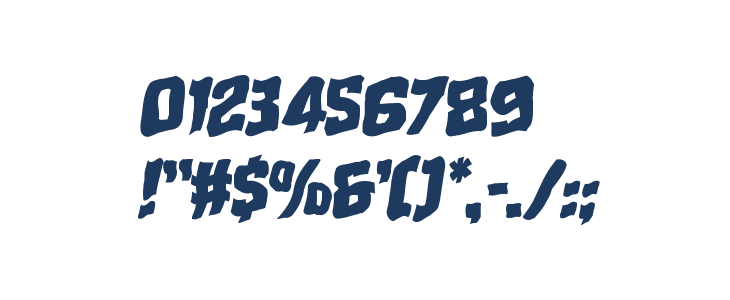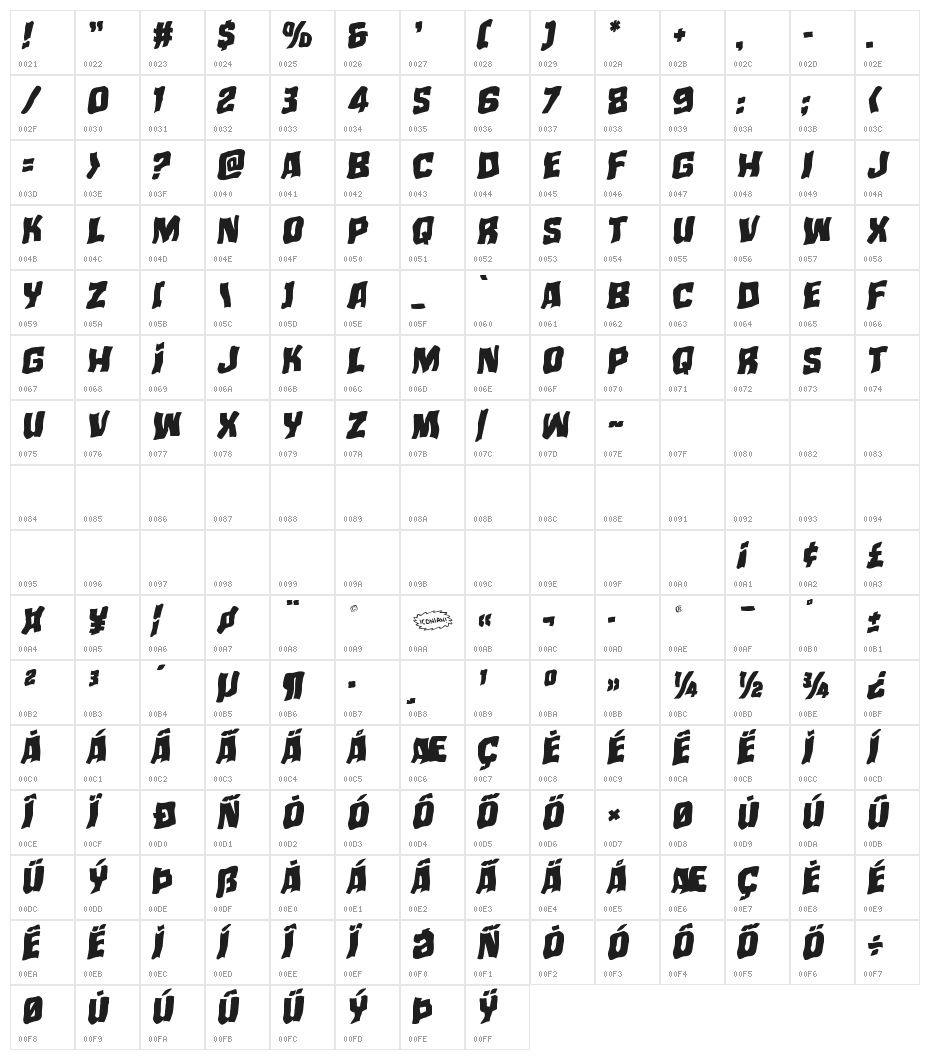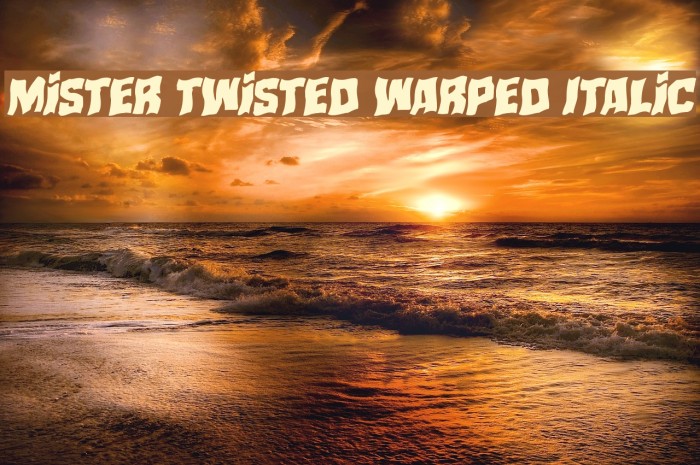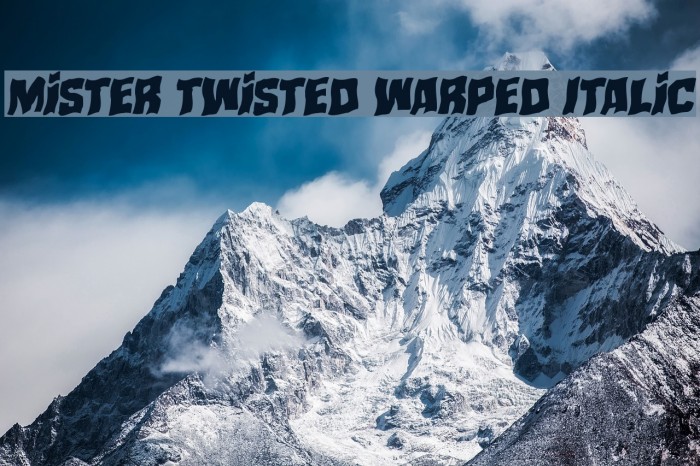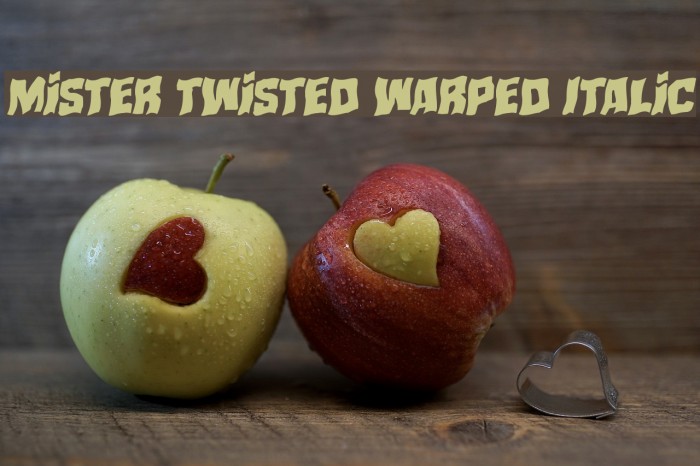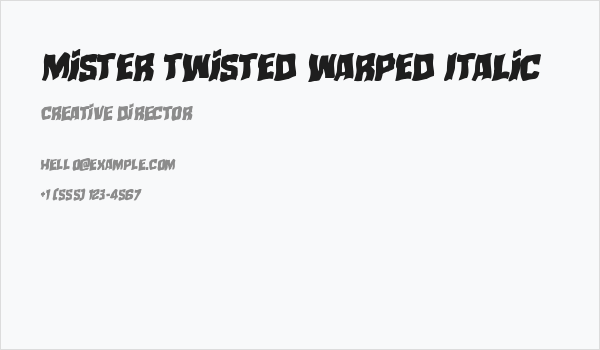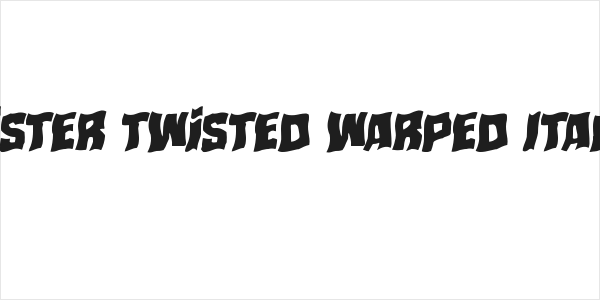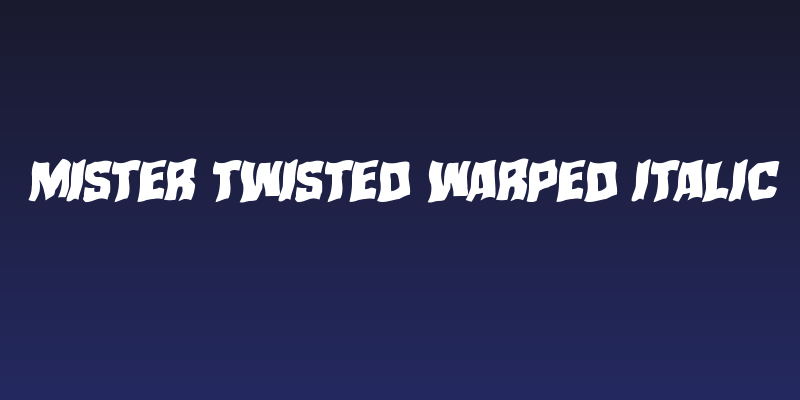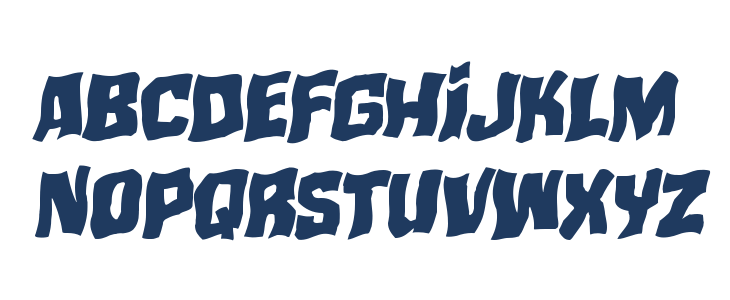
Mister Twisted Warped Italic Font
Mister Twisted Warped Italic Description
This font features a bold, dynamic style with a twisted, warped appearance that gives it a unique and edgy look. The characters are heavily stylized, with irregular shapes and angles that create a sense of movement and energy. The uppercase and lowercase letters maintain a consistent design, while the numbers and special characters complement the overall aesthetic. This font's boldness and distinctive style make it stand out, perfect for projects that require a strong visual impact.
| Proposed Projects | Ideal for posters, album covers, video game titles, and branding that requires a bold statement. |